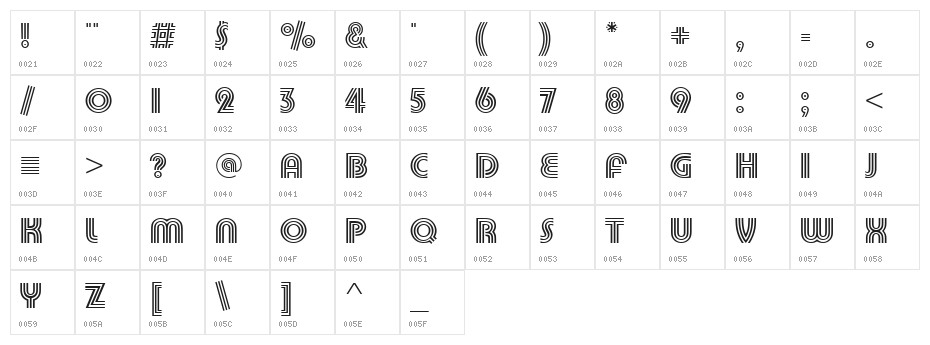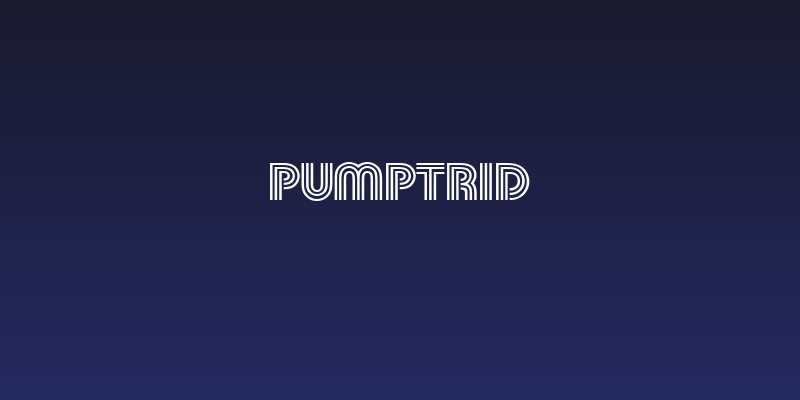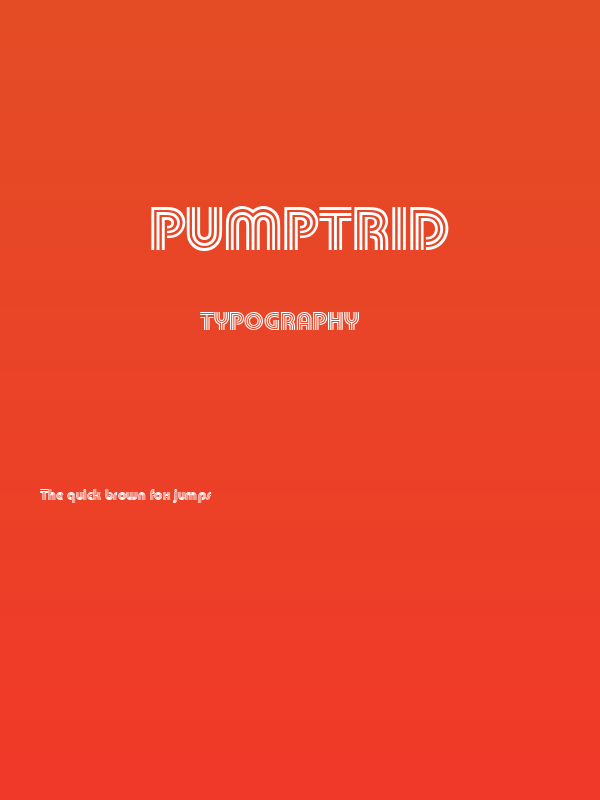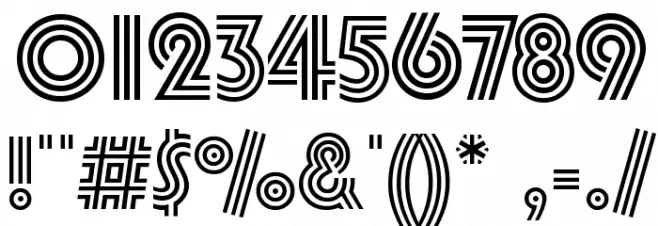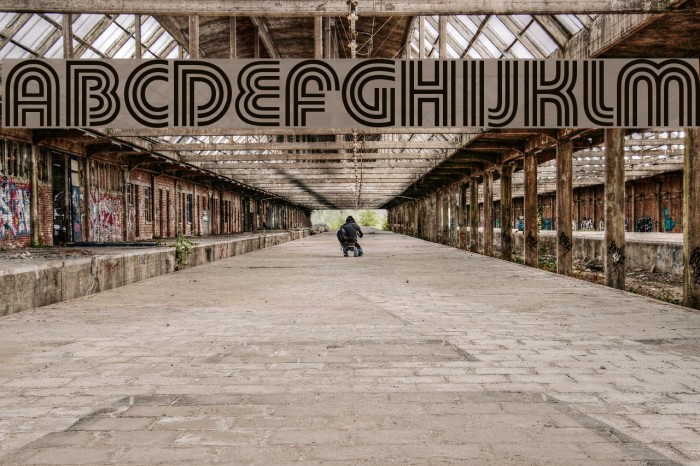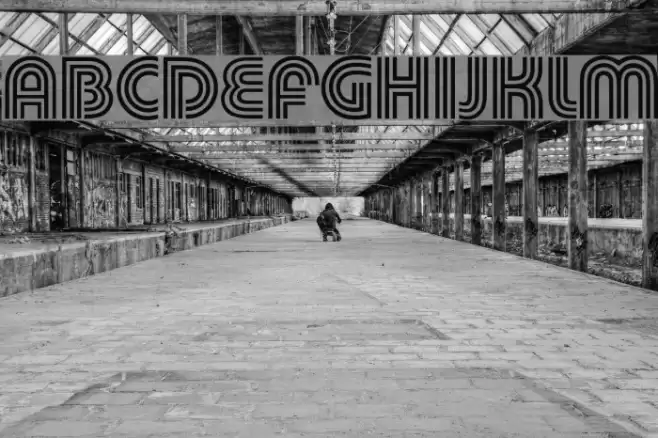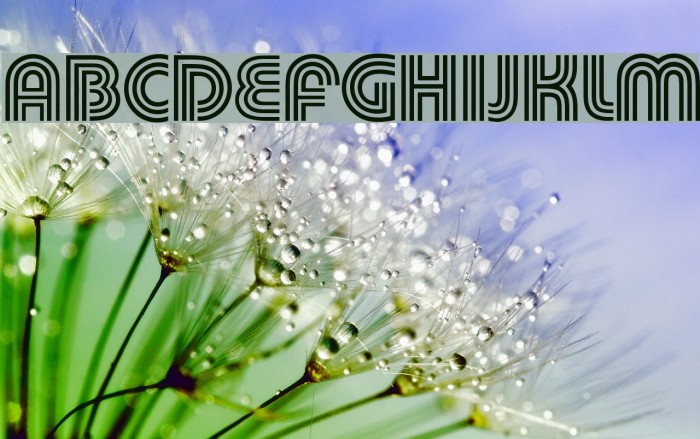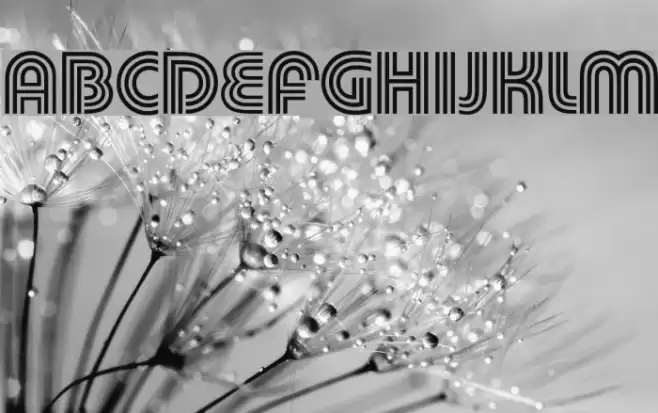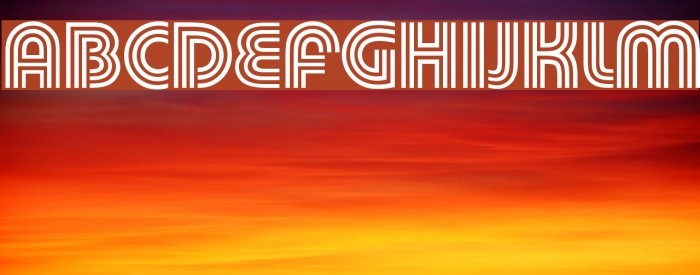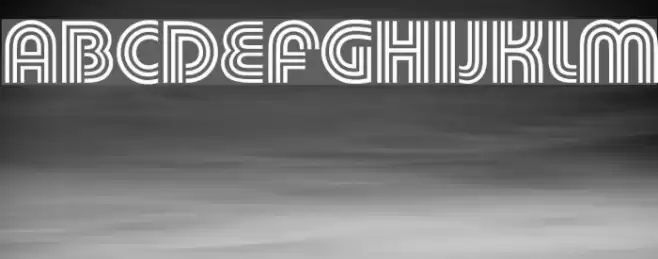
PumpTriD Font
PumpTriD Description
This font features a bold, geometric design with a distinctive triple-line pattern that creates a sense of depth and movement. The characters are constructed with clean, parallel lines that give it a futuristic and dynamic appearance. The uppercase and lowercase letters maintain a consistent style, while the numerals and special characters complement the overall aesthetic. The font's unique structure makes it stand out, ideal for projects that require a modern and eye-catching typeface.
| Proposed Projects | Ideal for branding, posters, album covers, and any design that needs a modern, striking typeface. |